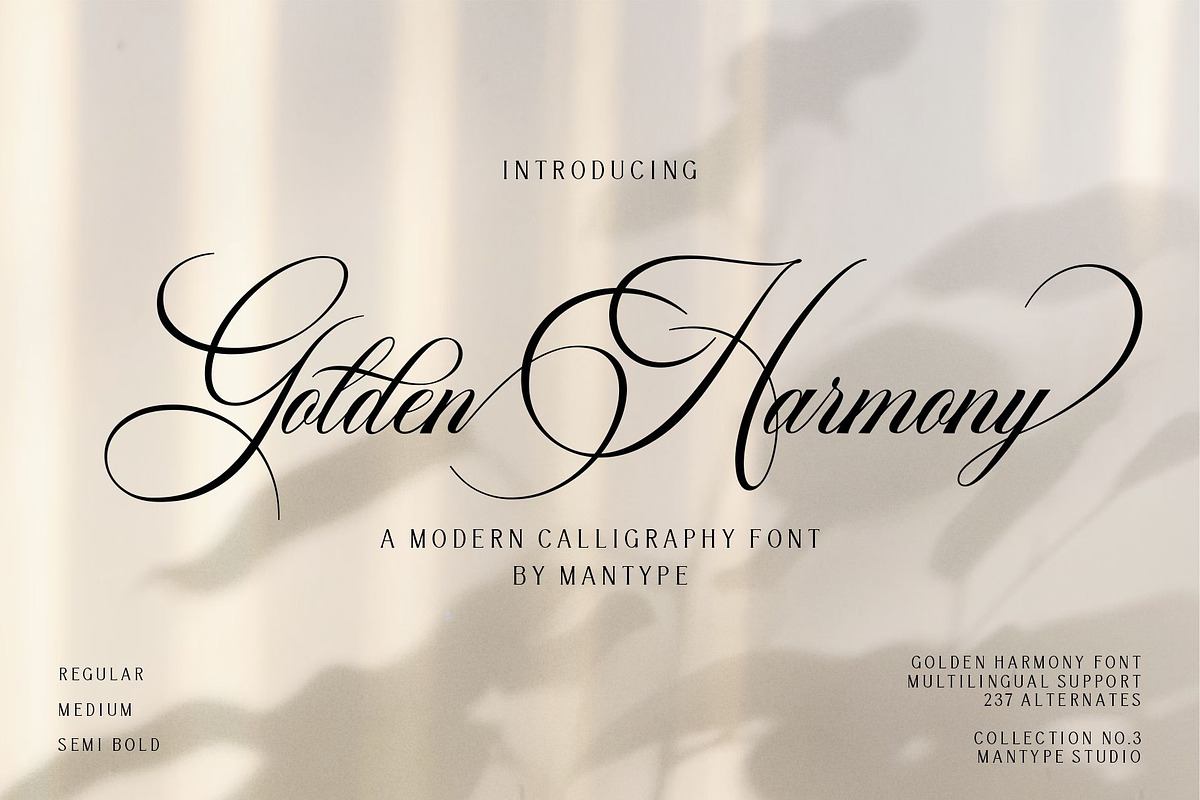
Golden Harmony Font Free Download is an elegant and luxurious script typeface that brings a sense of sophistication and graceful flow to any design. Please note, you are required to purchase this font for commercial use. It is available for free download for testing and personal projects only.
With its smooth, golden curves and refined letterforms, Golden Harmony is perfect for wedding invitations, upscale branding, beauty packaging, event signage, and romantic social media content. It effortlessly blends style and charm, making every word feel like a personal signature of elegance.
By choosing Golden Harmony Font Free Download, you're adding a high-quality calligraphy font to your creative toolkit. Easy to install and compatible with all major design platforms, this font is ideal for designers seeking a graceful, handwritten aesthetic that conveys class, warmth, and timeless beauty.